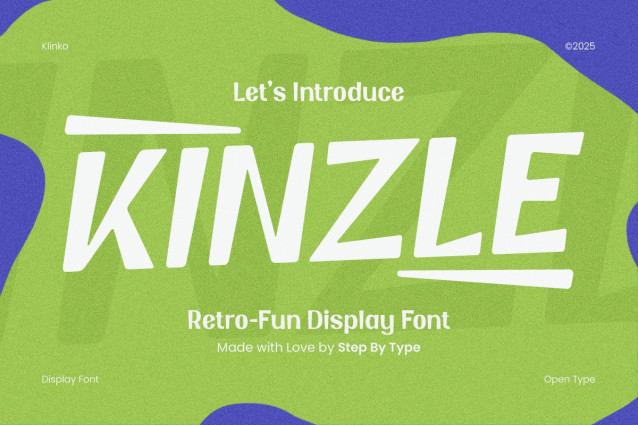
Kinzle Fun Font
Kinzle Fun Font – A handcrafted font built for gamers, dreamers, and digital adventurers. A retro-inspired display font bursting with character and fun. Kinzle is a lively, eye-catching typeface that channels nostalgic charm with a fresh modern twist. Designed for standout headlines, playful branding, and expressive design, it’s a perfect choice for anyone who wants to make their message pop with funky retro vibes.